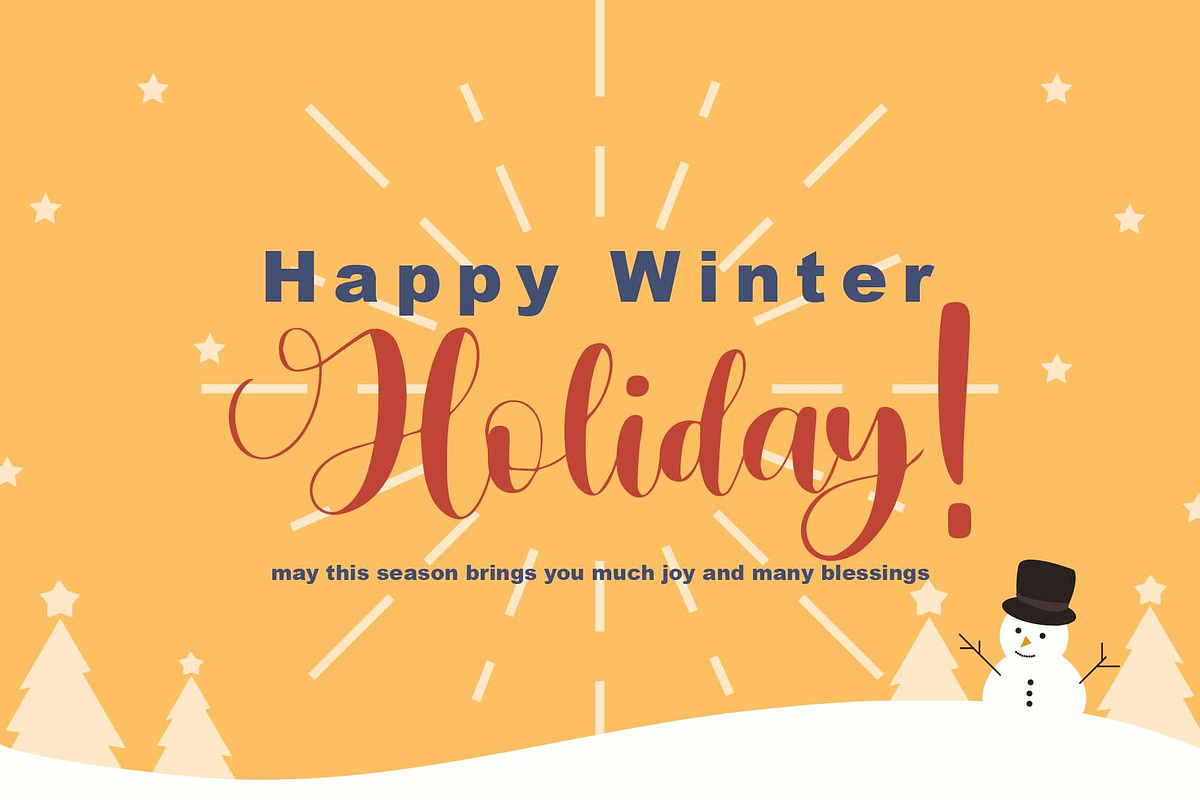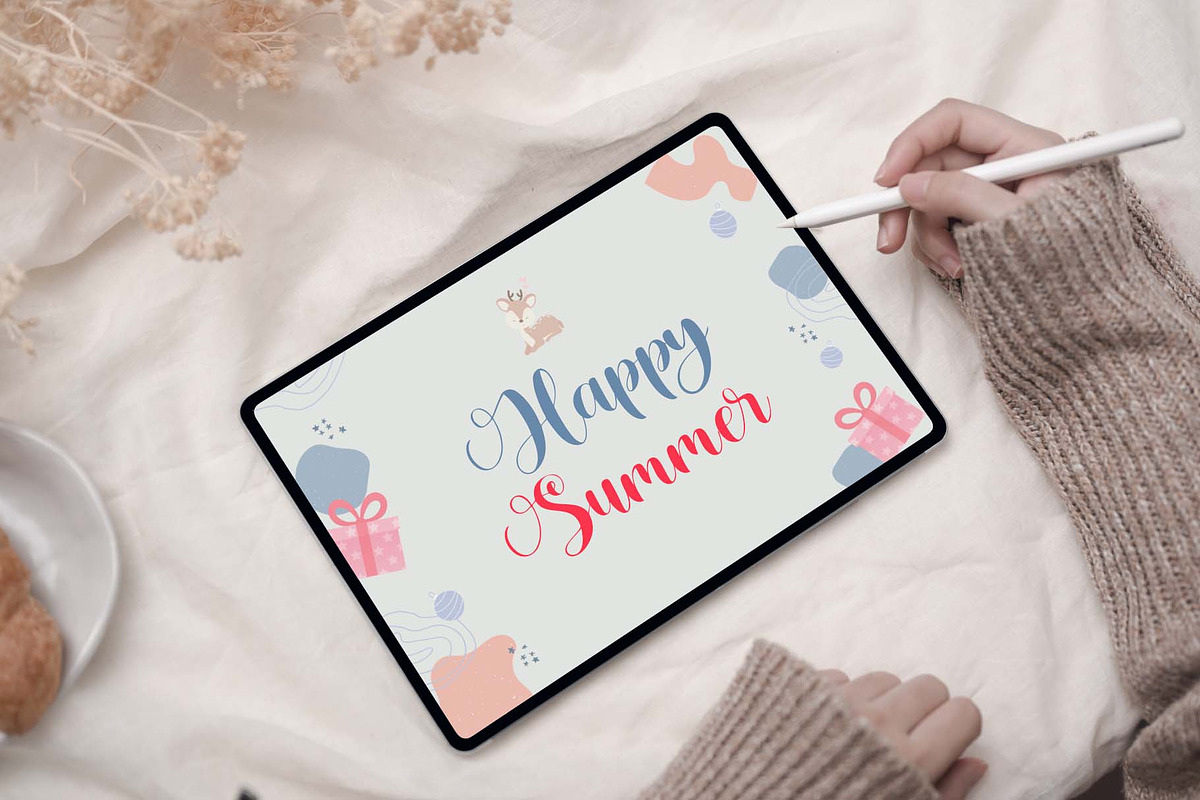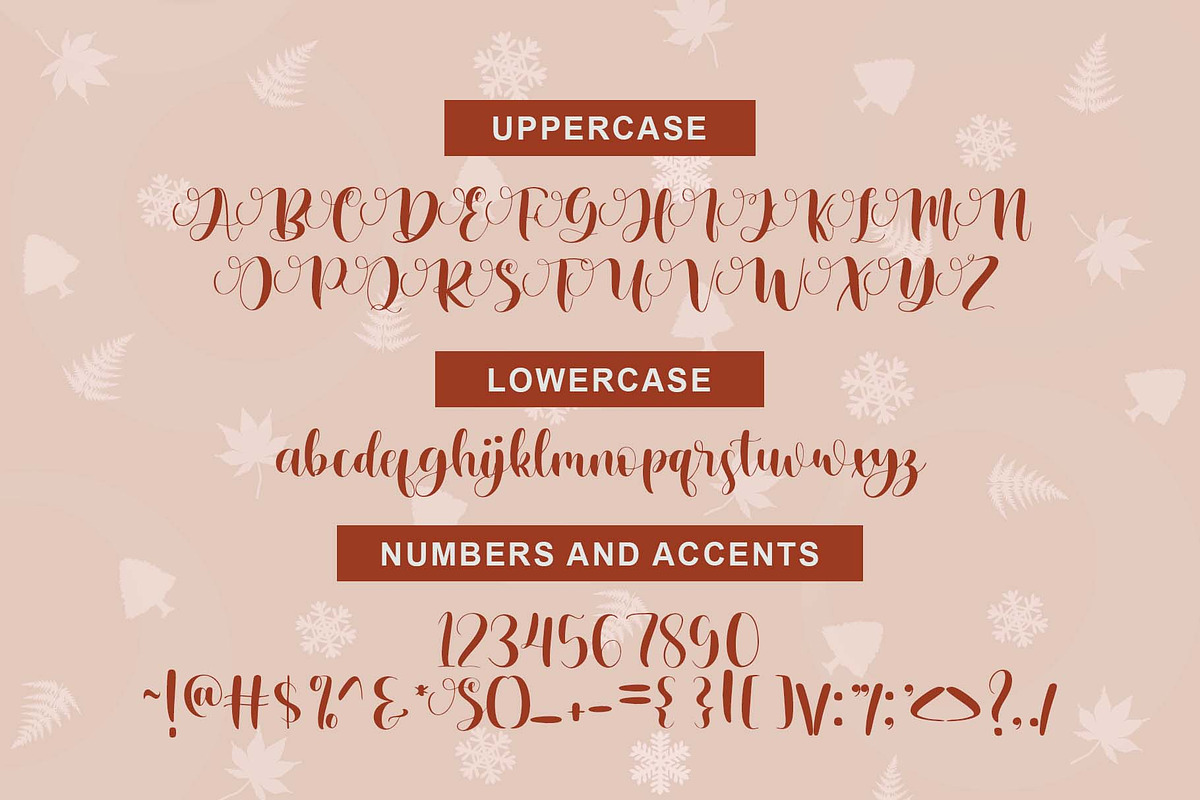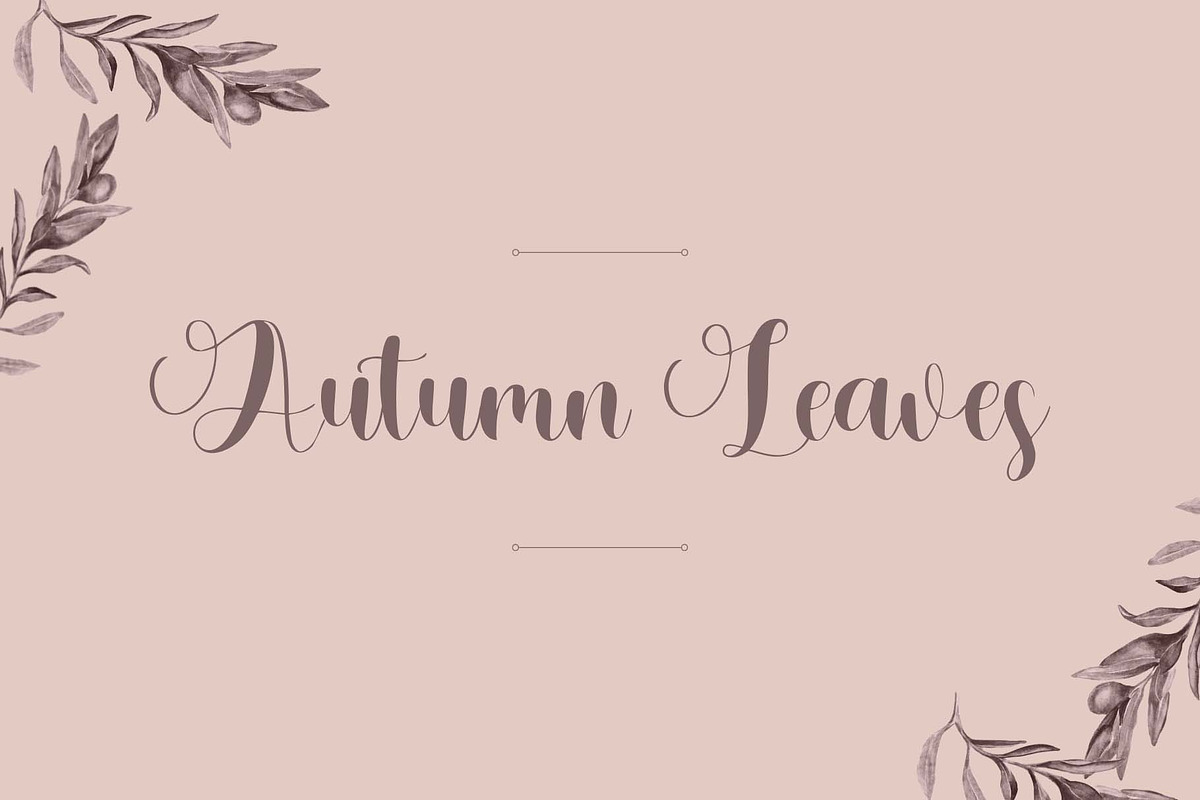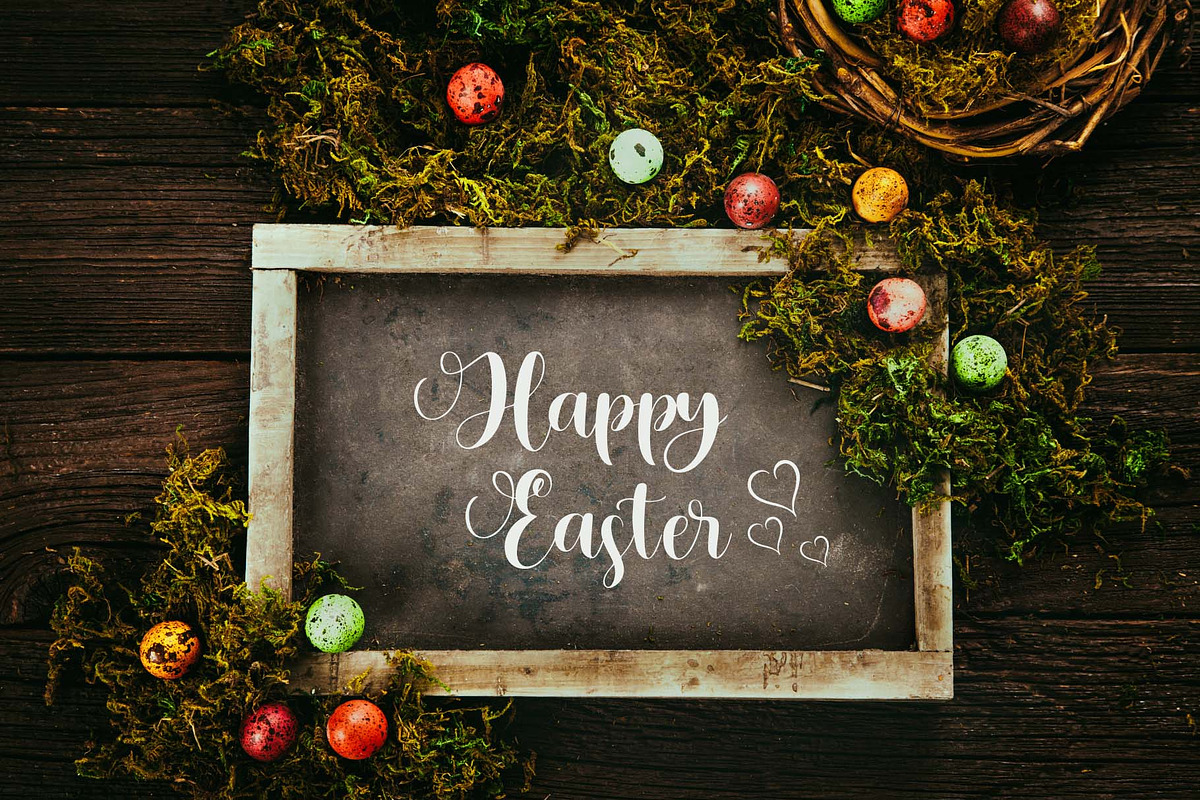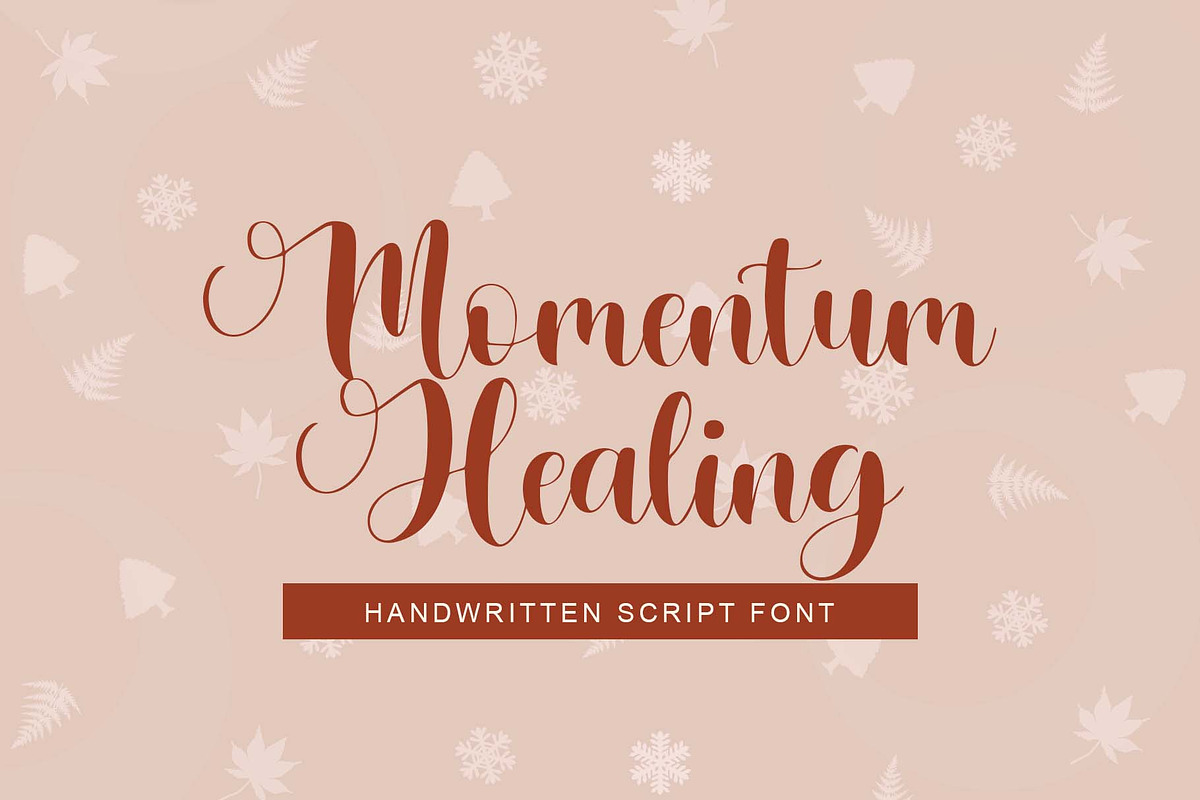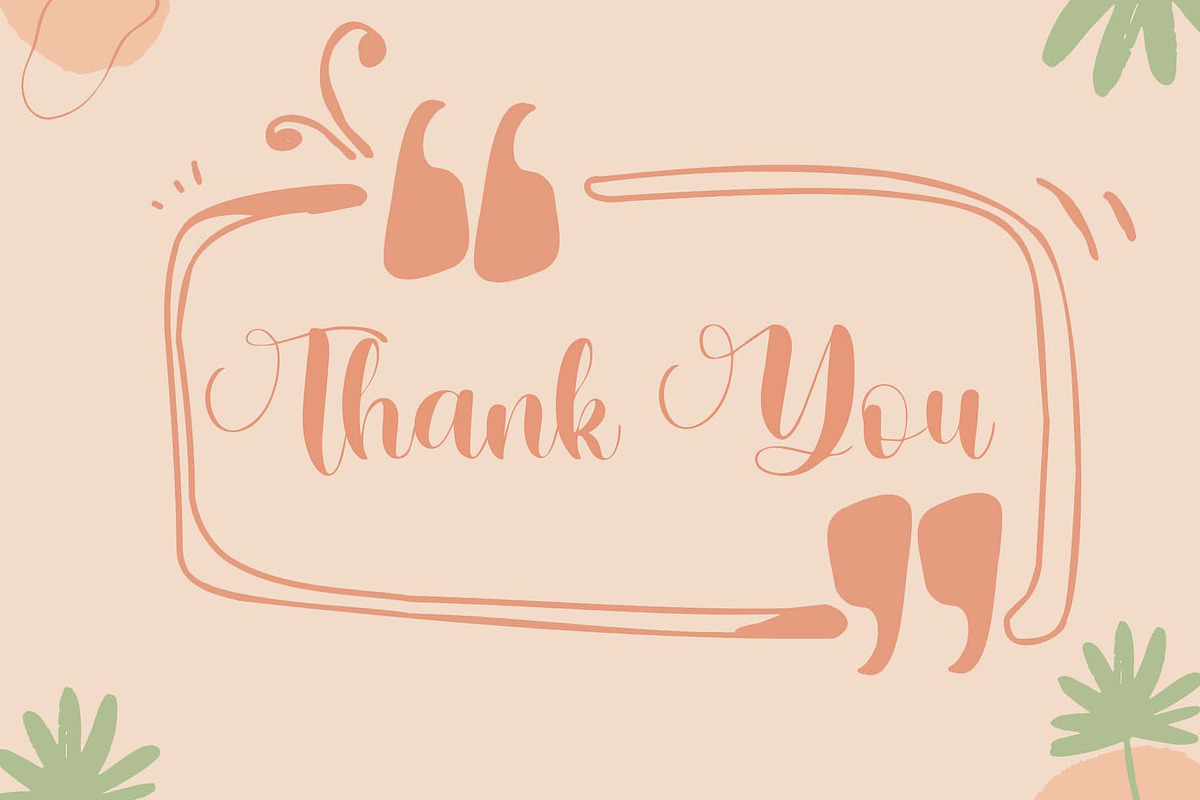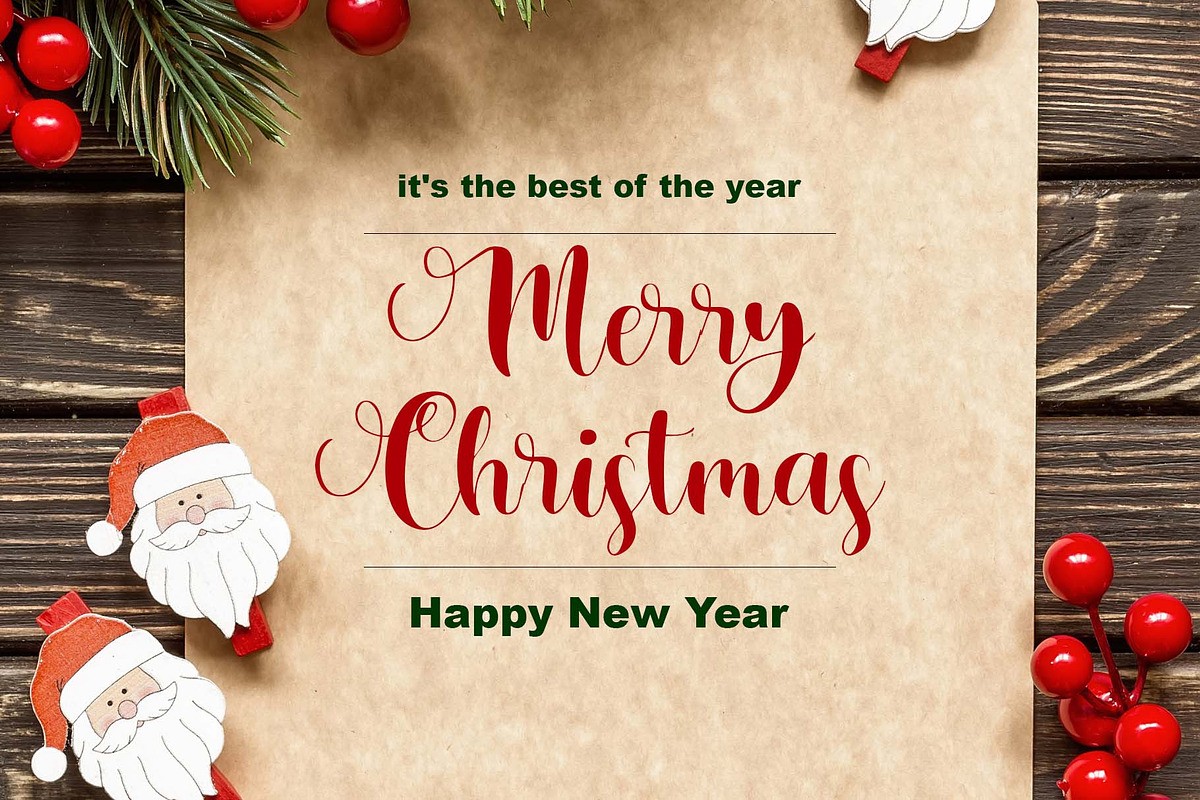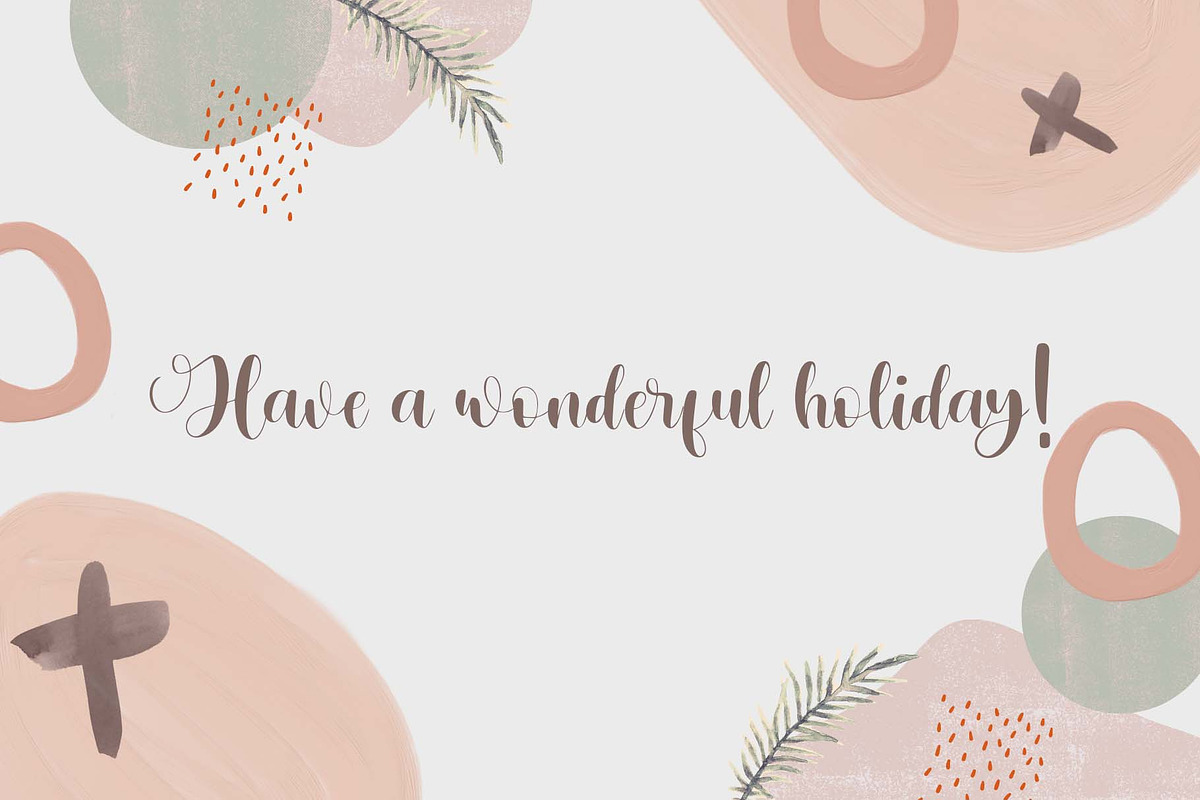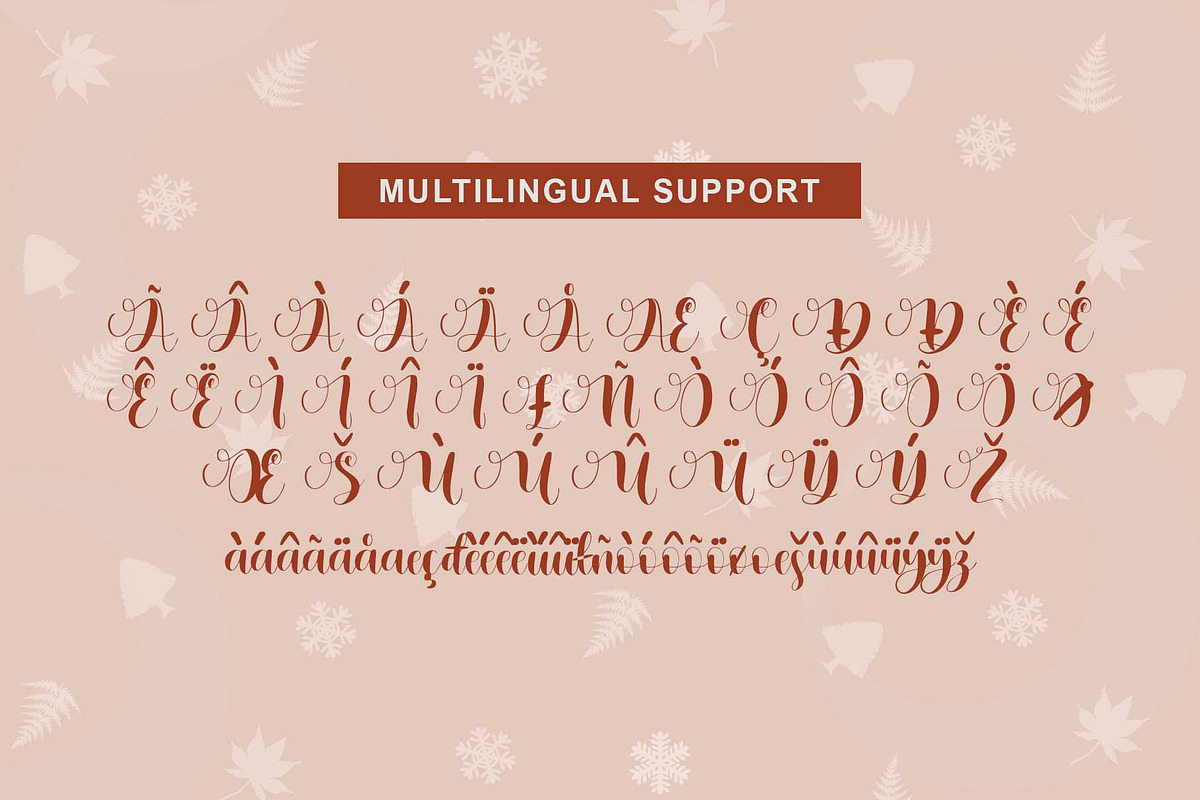
Momentum Healing
Momentum Healing is a Handwritten Style font by Wildan Type. It has flowing letters that will give your designs a unique and sweet look. Momentum Healing font is perfect; logos, greeting cards, a package design, a brand identity, craft design, any DIY project, book title, wedding invitation, packaging, and more.